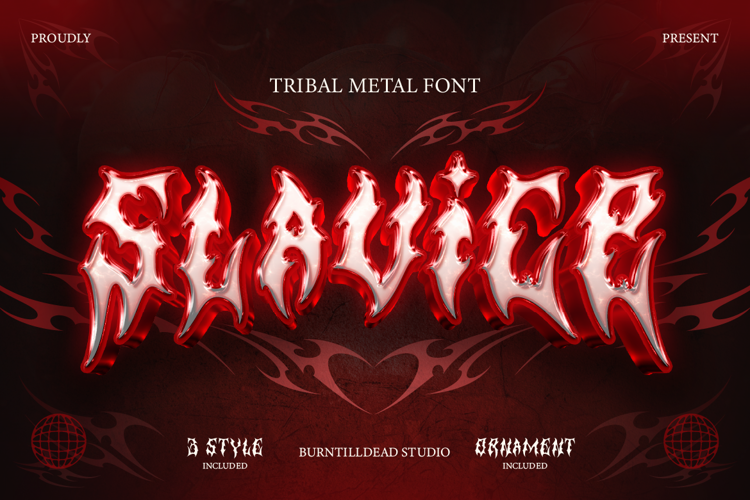
Slavice Font
Slavice is a bold tribal metal font with sharp details and wild curves. Perfect for gothic, horror, underground music, tattoo designs, and brutal gig posters.